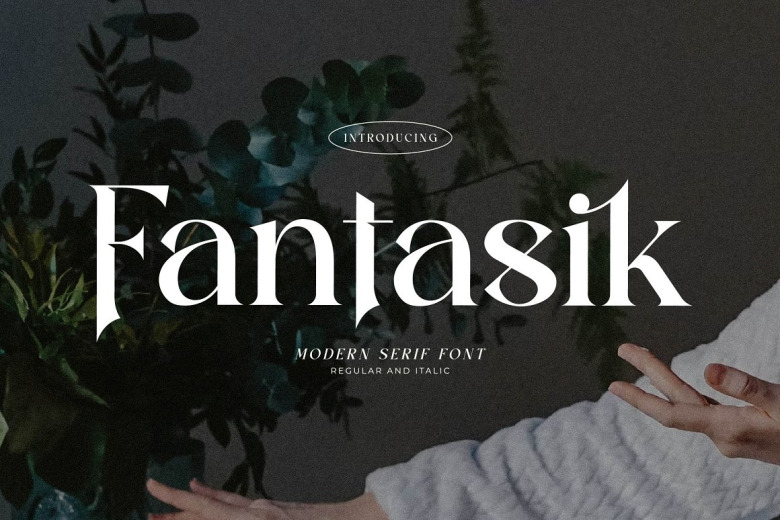
Fantasik Font
I Proudly present Fantasik Modern Serif Font, created by Storytype, A serif modern and classic typeface that has own unique style & modern look.
This typeface is perfect for an elegant & luxury logo, book or movie title design, fashion brand, magazine, clothes, lettering, quotes, and so much more.
Fantasik Modern Serif Font